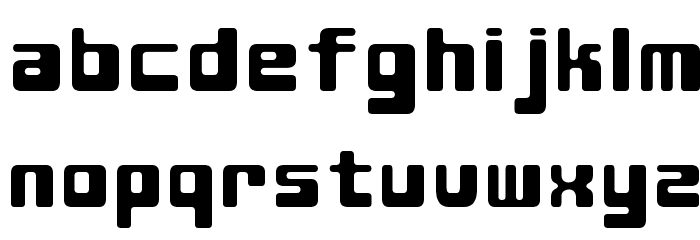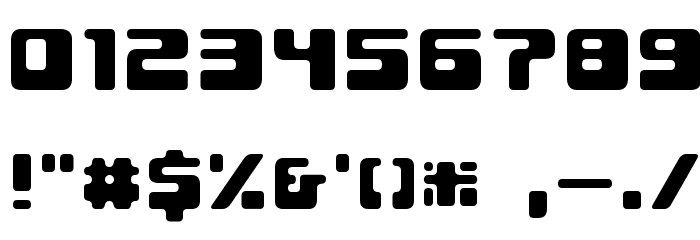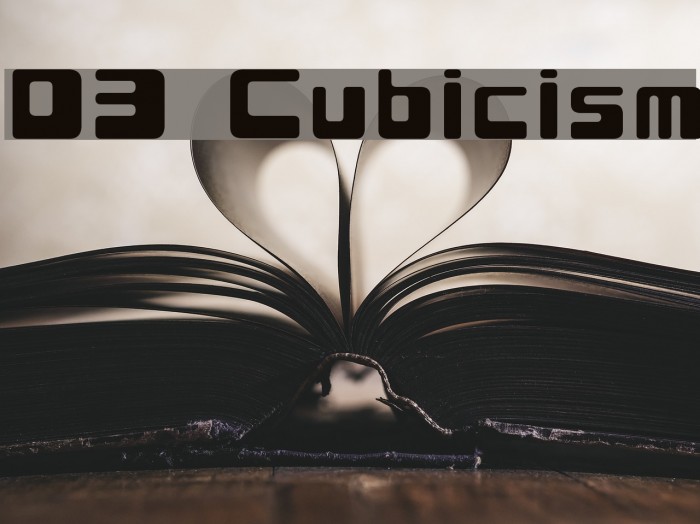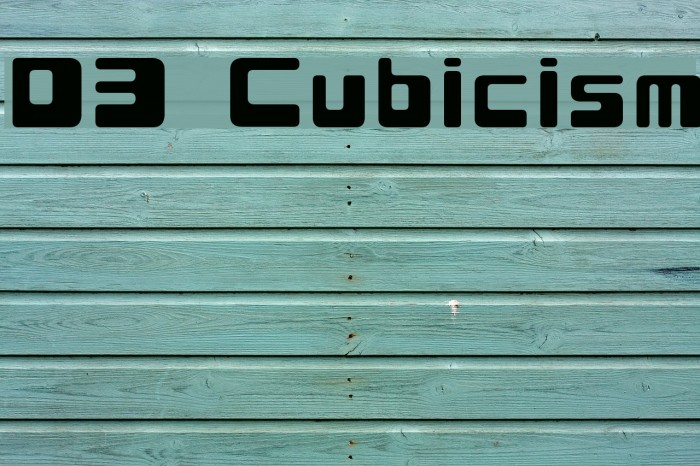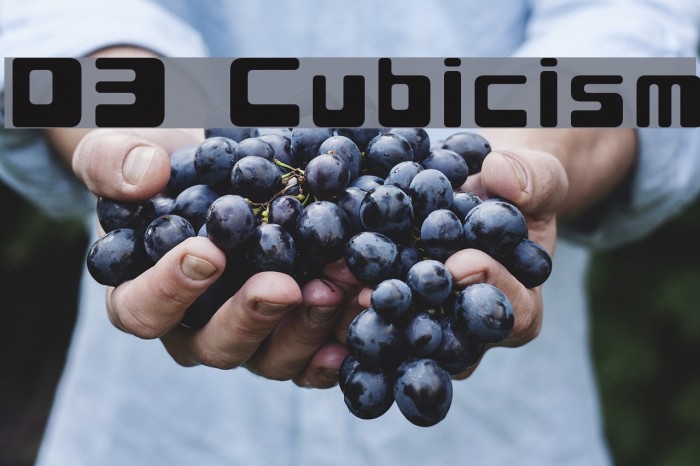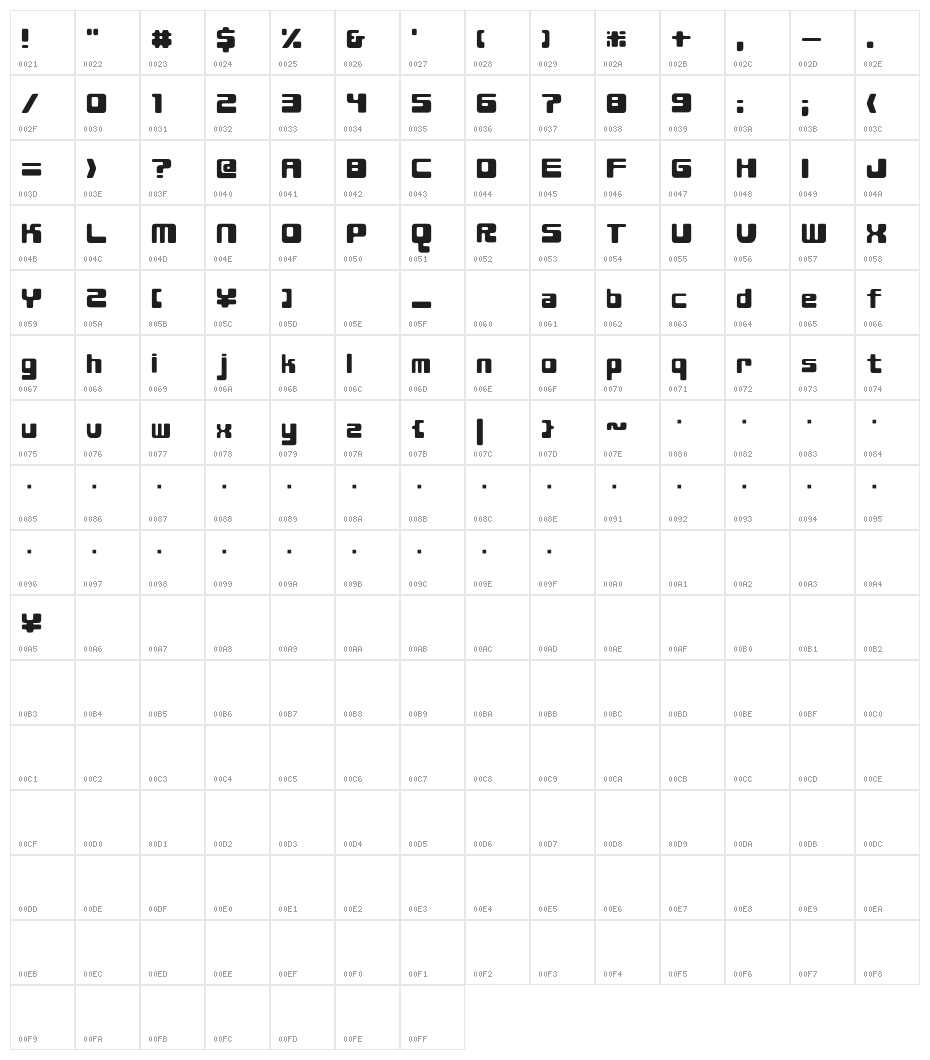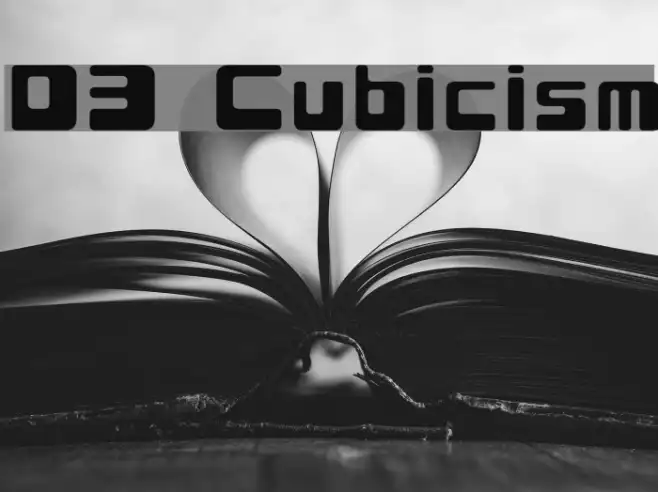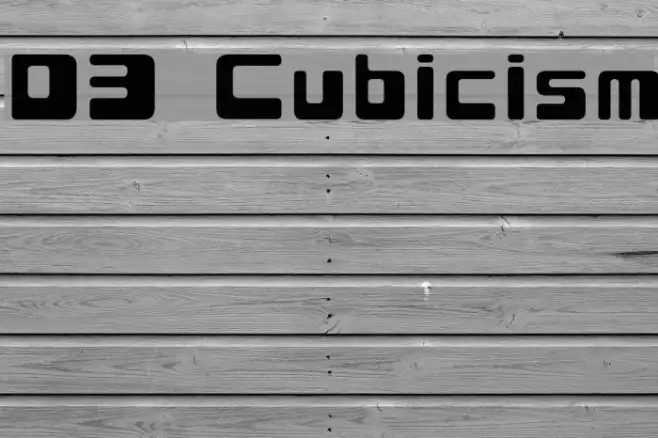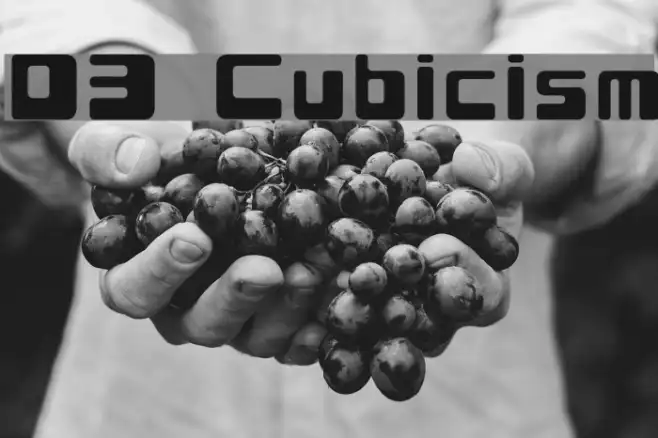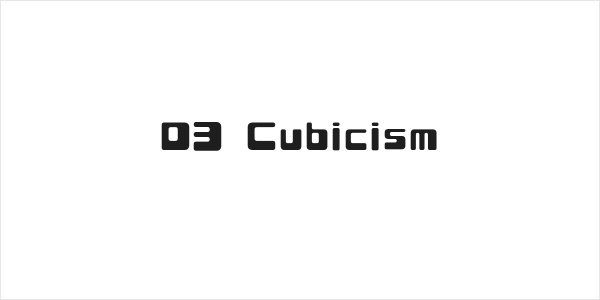
D3 Cubicism Font
This font features a bold and geometric design, characterized by its blocky and cubic letterforms. The uppercase and lowercase letters maintain a consistent thickness, giving it a uniform appearance. The characters are slightly rounded at the corners, softening the otherwise rigid structure. The numerals and special characters follow the same design principles, ensuring cohesion across all glyphs. This font's unique style makes it stand out, offering a modern and futuristic aesthetic that is both eye-catching and versatile.
A bold, geometric font with cubic, rounded letterforms.
- Proposed Projects: Ideal for futuristic designs, tech branding, video game titles, and modern posters.